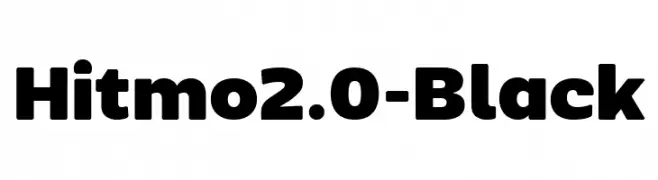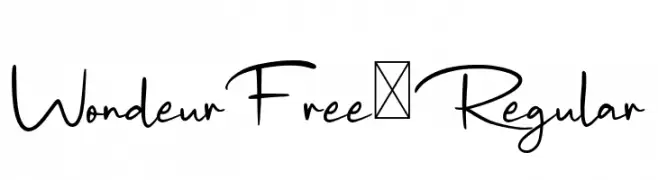
A playful, handwritten script font with flowing, interconnected strokes.
A bold, italicized font with sharp angles and a dynamic, modern style.
A playful font with characters inside pumpkin shapes, perfect for festive themes.
A runic-inspired font with characters carved into stone-like shapes.
A dynamic script font with bold, hand-brushed strokes and elegant cursive flow.
A tall, narrow, and modern font with consistent stroke width and sharp angles.
A bold, rounded font perfect for impactful headlines and modern designs.